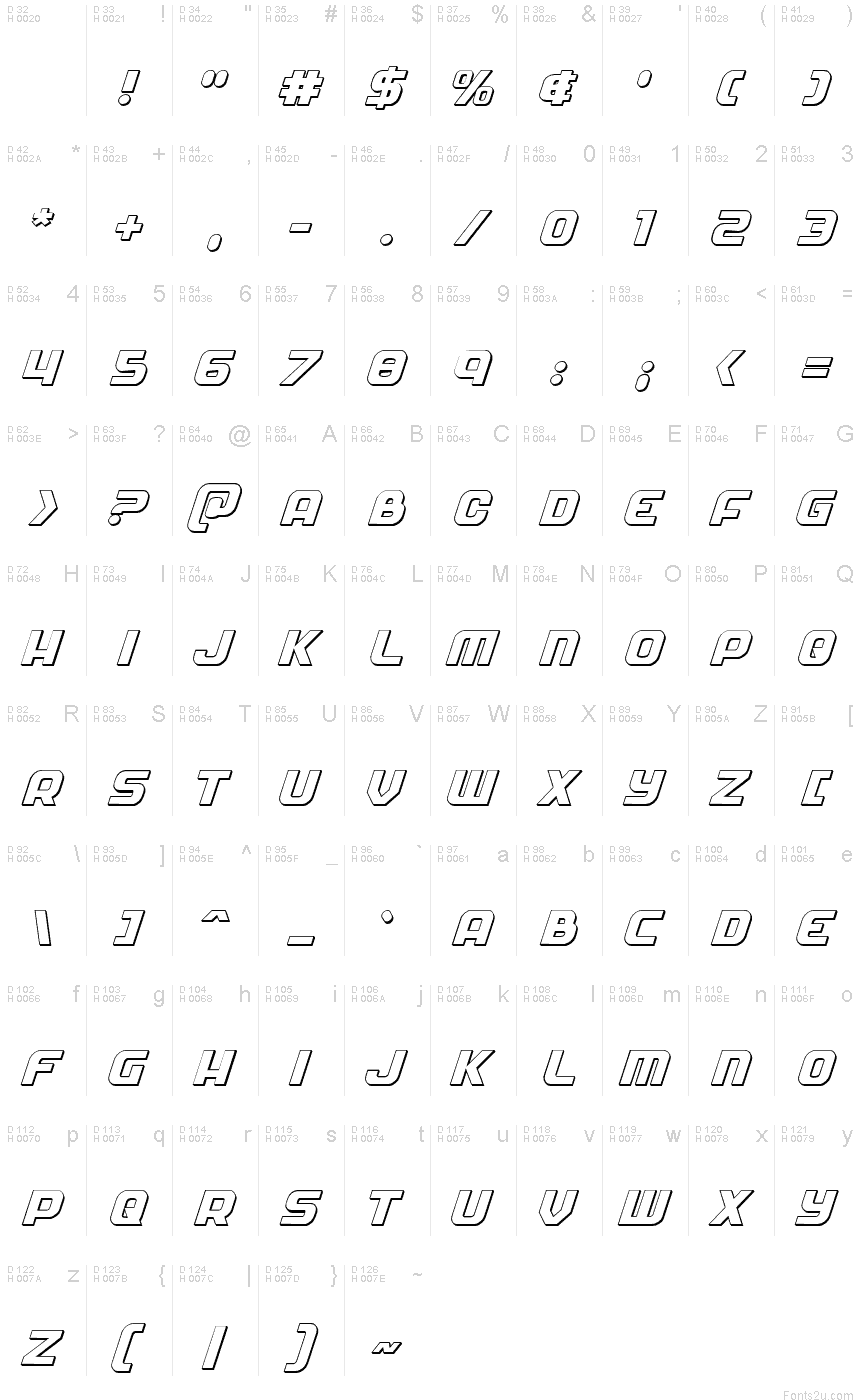
Soldier 3D Italic by Daniel Zadorozny of Iconian Fonts is a free outlined techno display font with a hard forward slant. Its broad, squared letters combine clipped corners with smoothly rounded outer bends. A compact black offset supplies the dimensional edge.
The forms echo racing stripes, fitting motorsport posters and game artwork. They also suit team merchandise and action-themed event branding. In these settings, the lettering can become part of a speed emblem rather than serve as neutral text.
Soldier 3D Italic